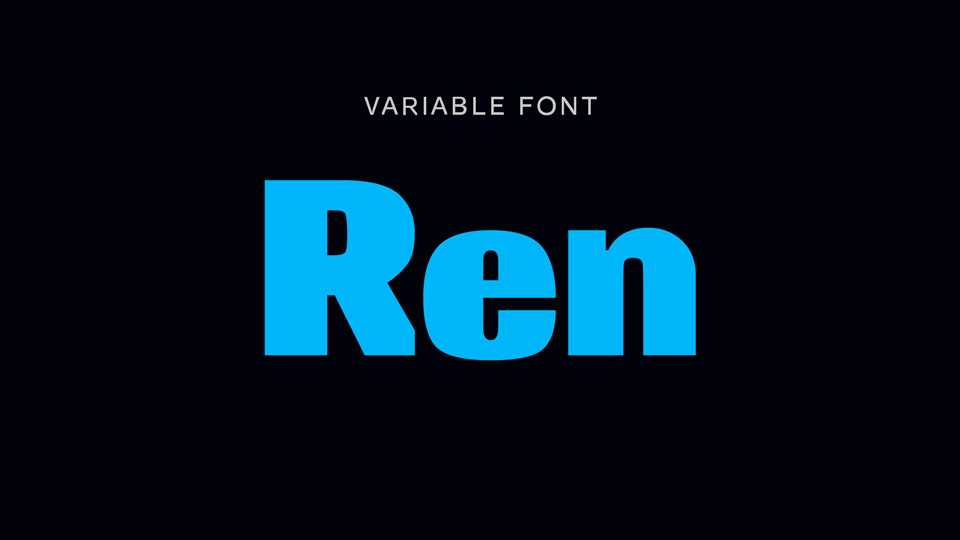
Download Ren typeface, a variable sans serif font with a bold personality. Ren font family works great with both text and titles, looks great for attractive headings and statements, and is suitable for editorial use.
Designer: Eli Heuer